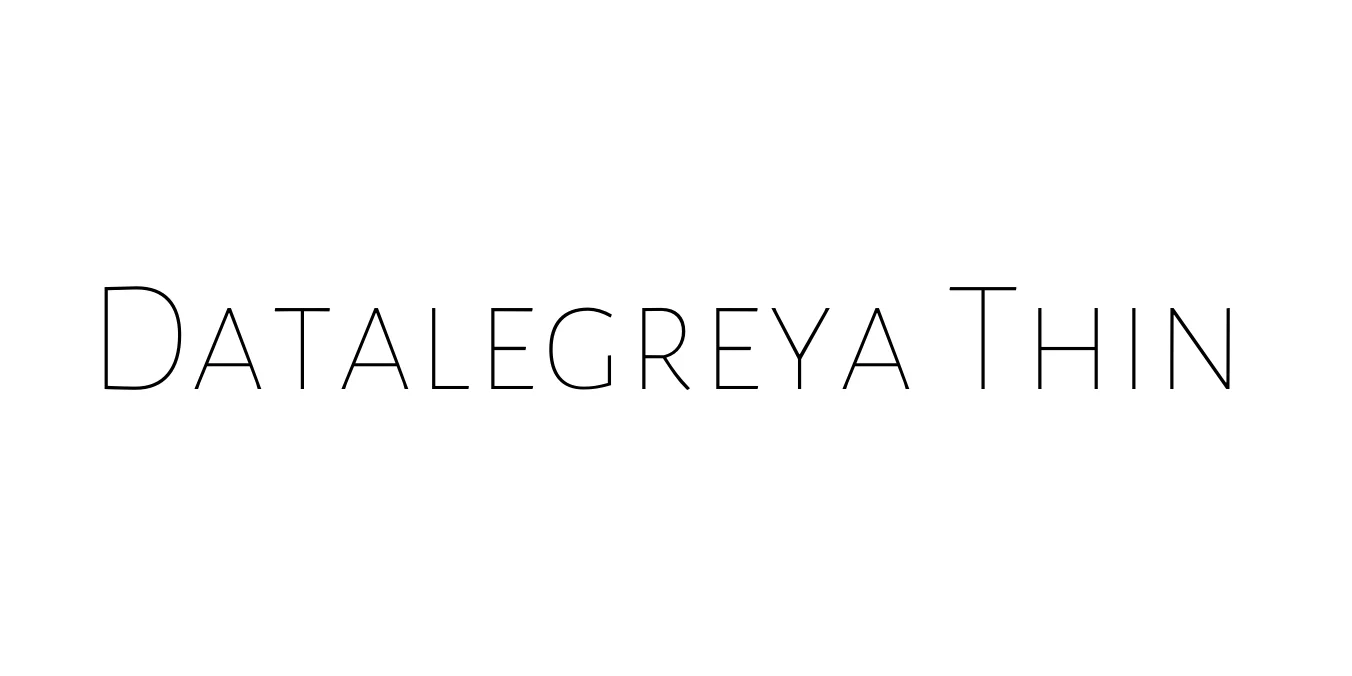
Datalegreya Thin
Designed by Figs (Figance)
| Category | Display / Sans Serif |
| Designer | Figs (Figance) |
| Similar Fonts | Alegreya Sans, Sparks, Graphik |
Datalegreya Thin is a unique display typeface designed by the creative studio Figs, specifically tailored for the integration of data visualization within text. It is built upon the foundation of Alegreya Sans SC Thin, originally created by Juan Pablo del Peral. The font's primary innovation lies in its ability to interweave charts and graphs directly into a string of text using sophisticated OpenType features, allowing users to present complex information without the need for external graphics software.
The typeface was developed to address the needs of designers working on technical documentation, reports, and digital dashboards where space is at a premium. By using specific character sequences, Datalegreya generates visual sparks and curves that track data points, making it an essential tool for modern infographic design and data-driven storytelling. It bridges the gap between traditional typography and data analysis, providing a seamless aesthetic for information-heavy layouts.
Datalegreya Thin Best Uses
Embedding sparks and charts directly into textual paragraphs.
Presenting metrics alongside descriptive content for professional clarity.
Displaying compact performance indicators in UI design.
Merging statistical data with headers and body text seamlessly.